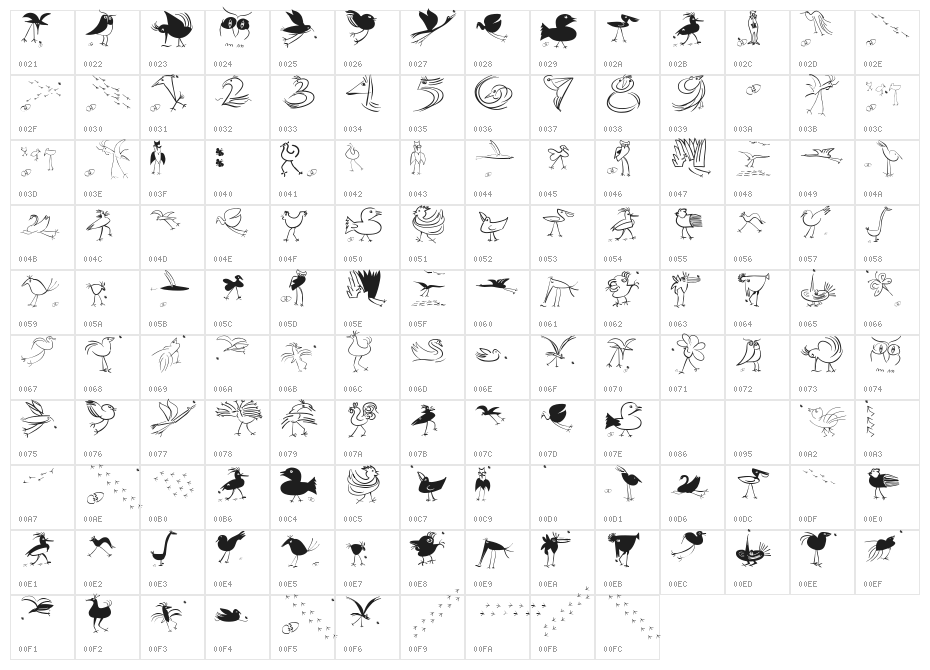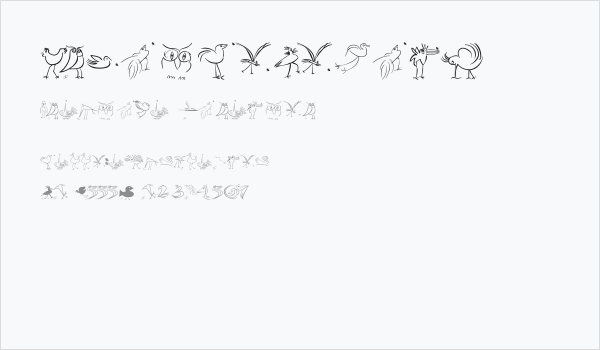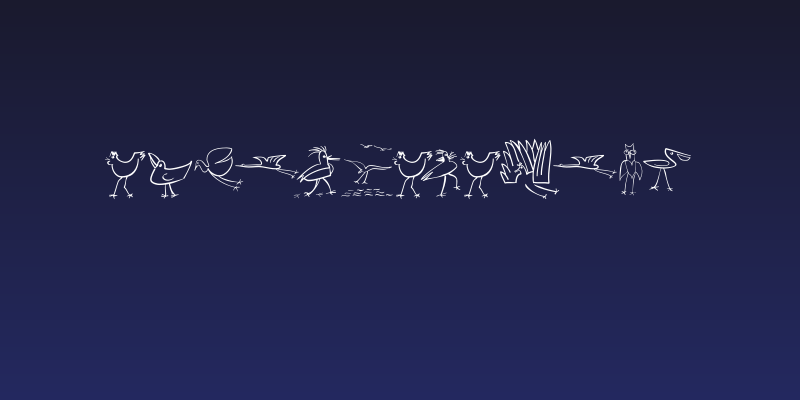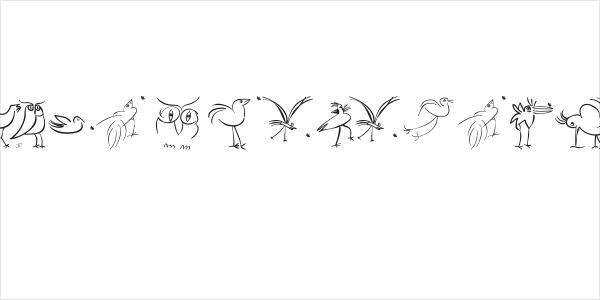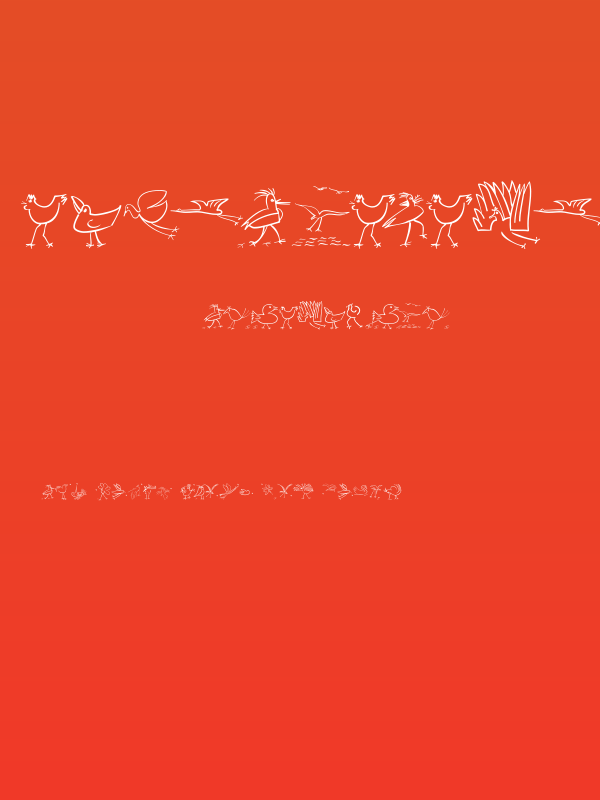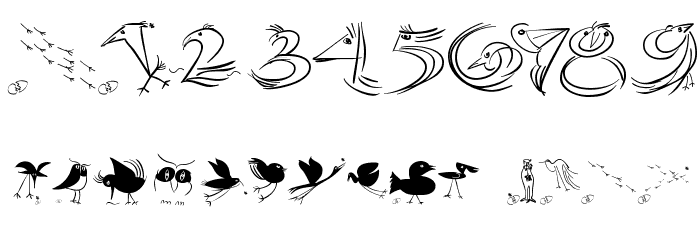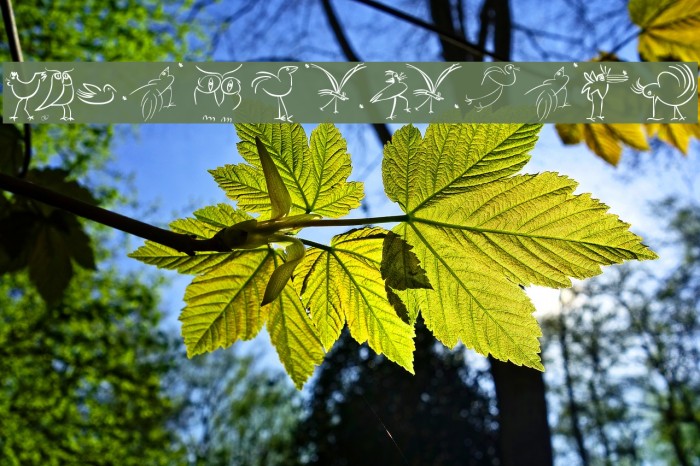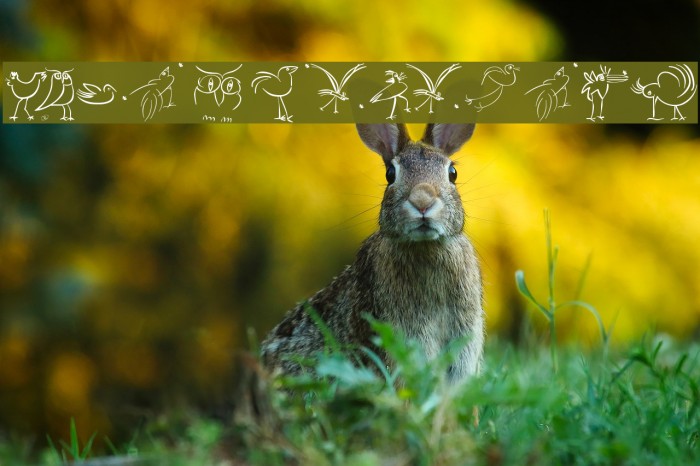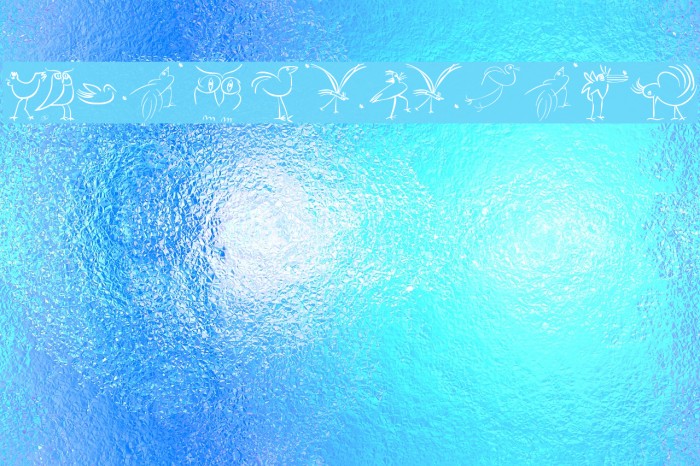
OrnithoLogics Font
OrnithoLogics Description
This whimsical and playful font is characterized by its unique bird-themed illustrations that replace traditional letterforms. Each character is creatively designed to resemble a different bird, incorporating elements like beaks, wings, and feathers. The font exudes a sense of fun and creativity, making it ideal for projects that require a lighthearted and artistic touch. The characters are intricately detailed, showcasing a variety of bird species in a stylized manner. This font is perfect for children's books, educational materials, or any design project that seeks to incorporate a nature-inspired theme.
| Use Case | Headlines, Logos, Creative Projects |
| Proposed Projects | Ideal for children's books, educational materials, nature-themed designs, and creative branding projects. |